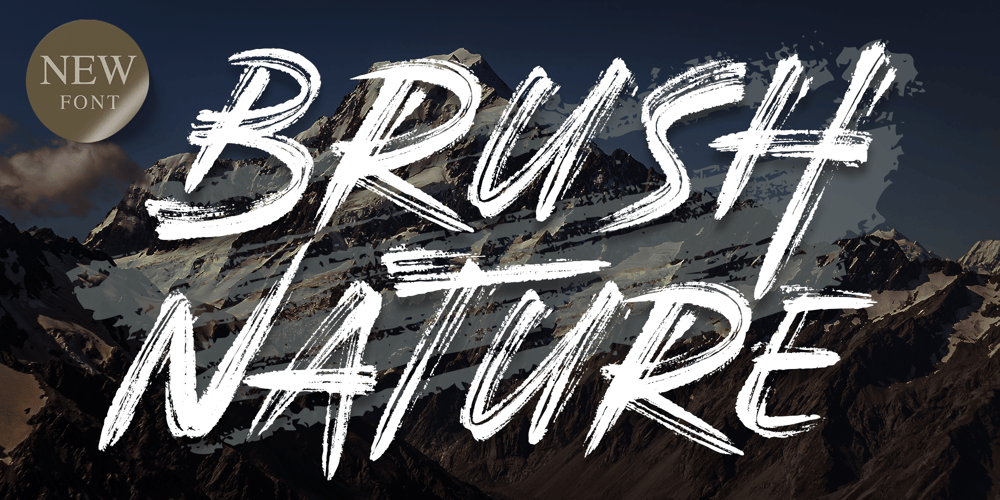
Brush Nature Font Family was designed by Achmad Hanif Ulinuha and published by Madhaline Studio. Brush Nature contains 1 styles and family package options. Brush Nature is a handcrafted font, featuring a natural brush style. Created handwork manually, it produces a font with a realistic brush stroke feel.